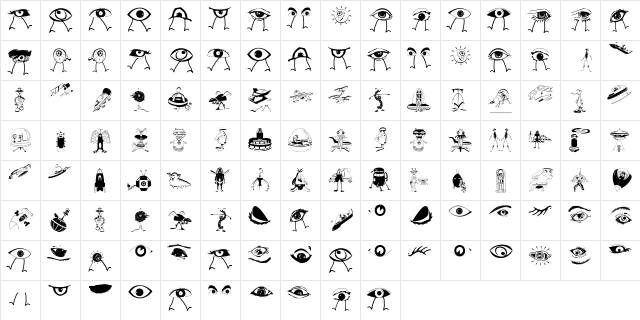
HalloweensUfos Regular
Design Context for HalloweensUfos Typeface
HalloweensUfos is a composed and adaptable typeface that performs quietly and consistently across a wide range of design contexts.